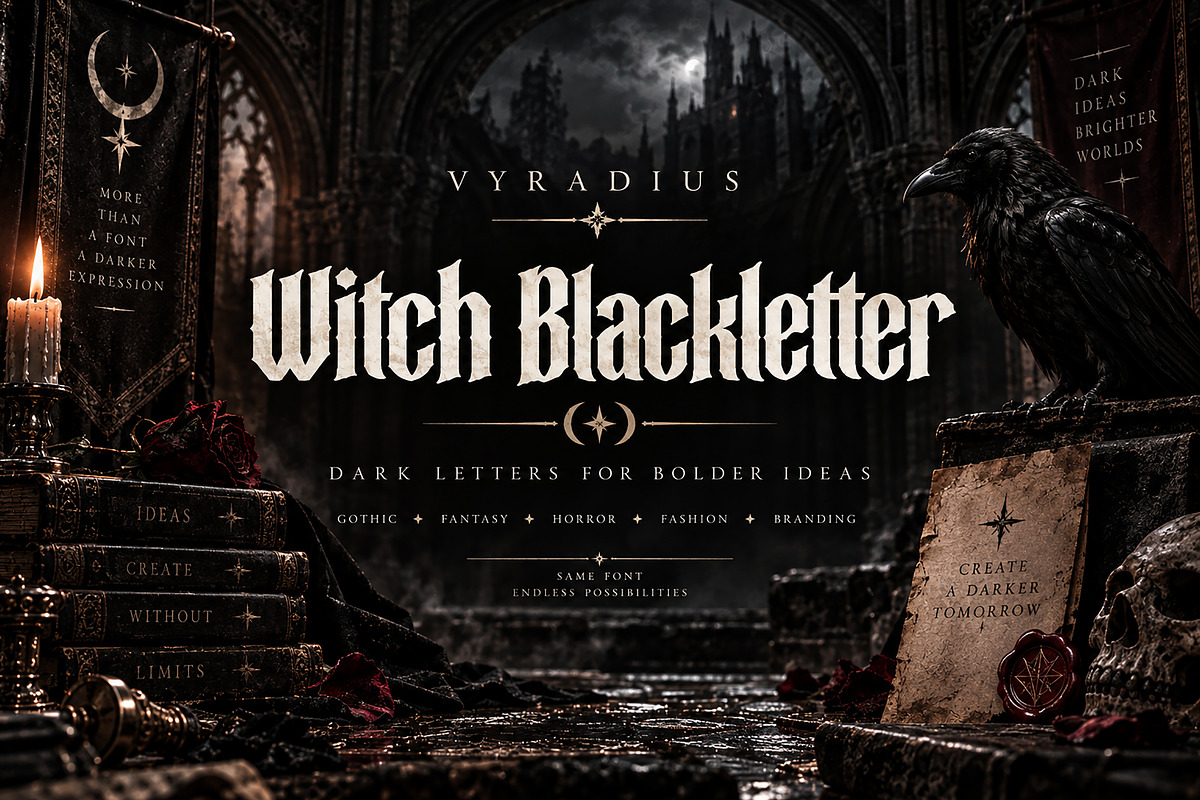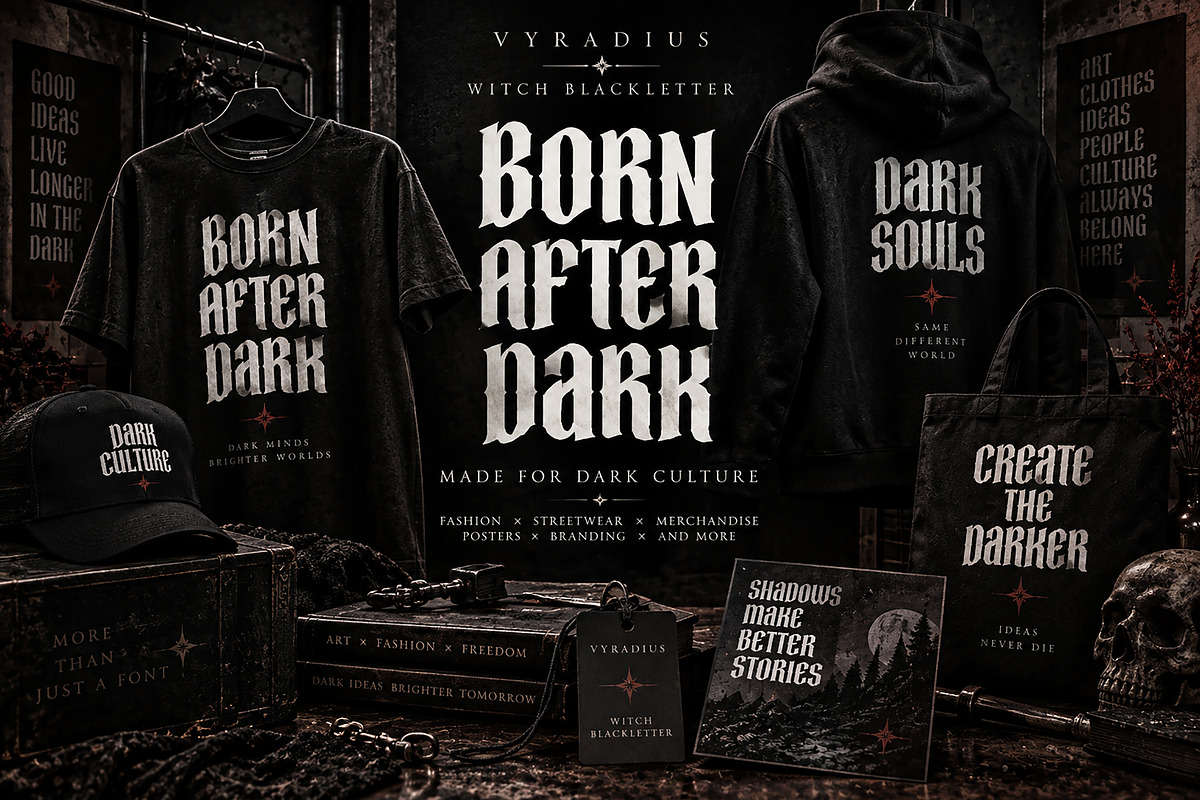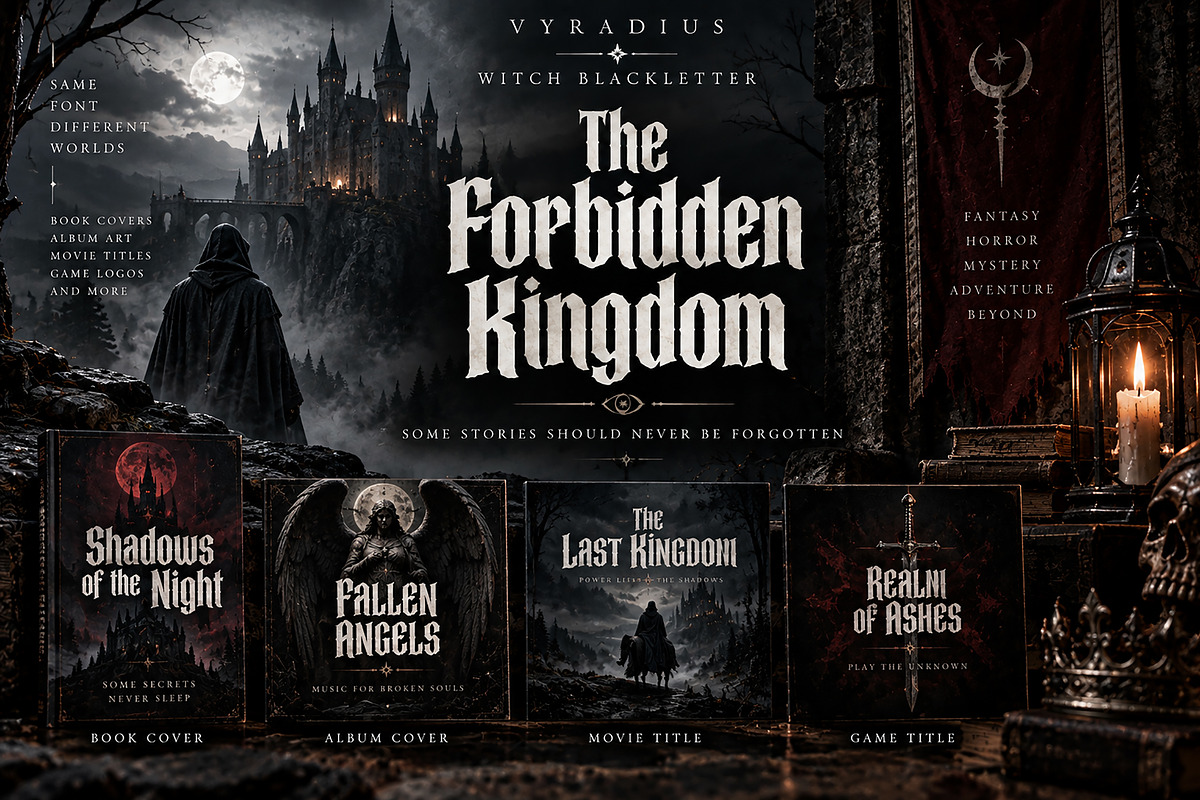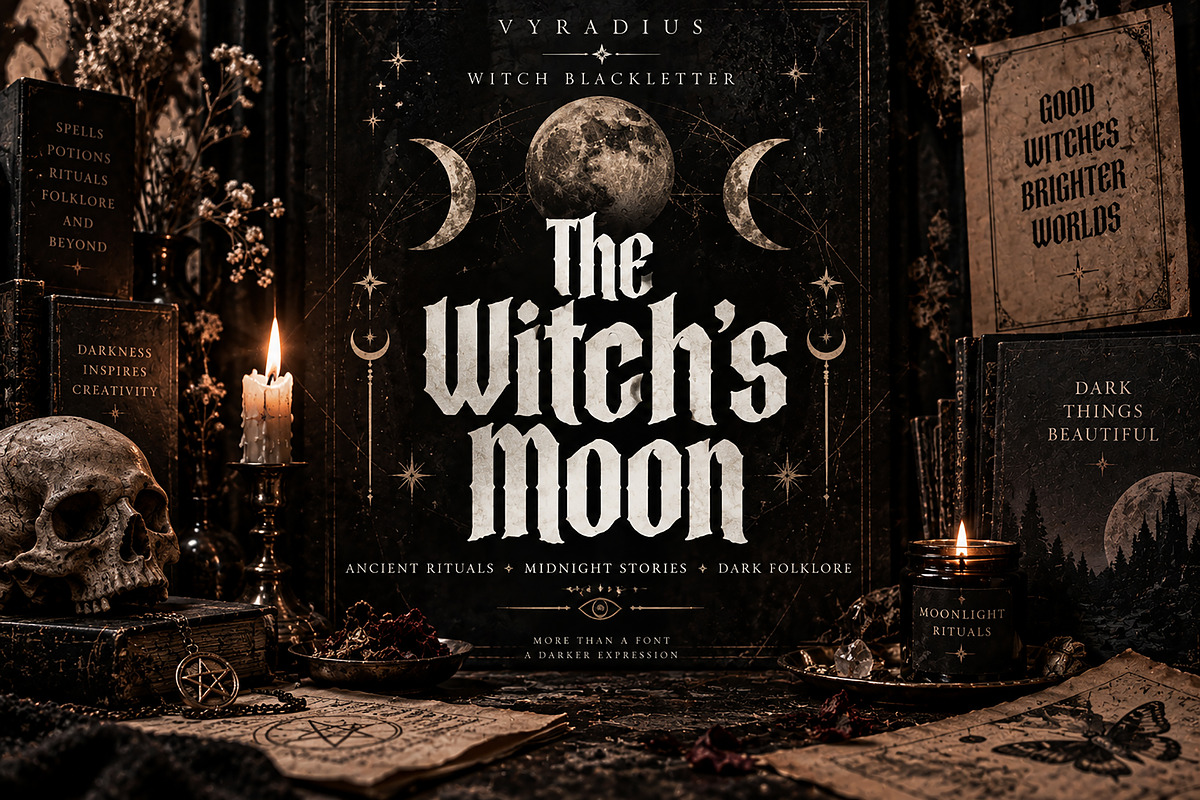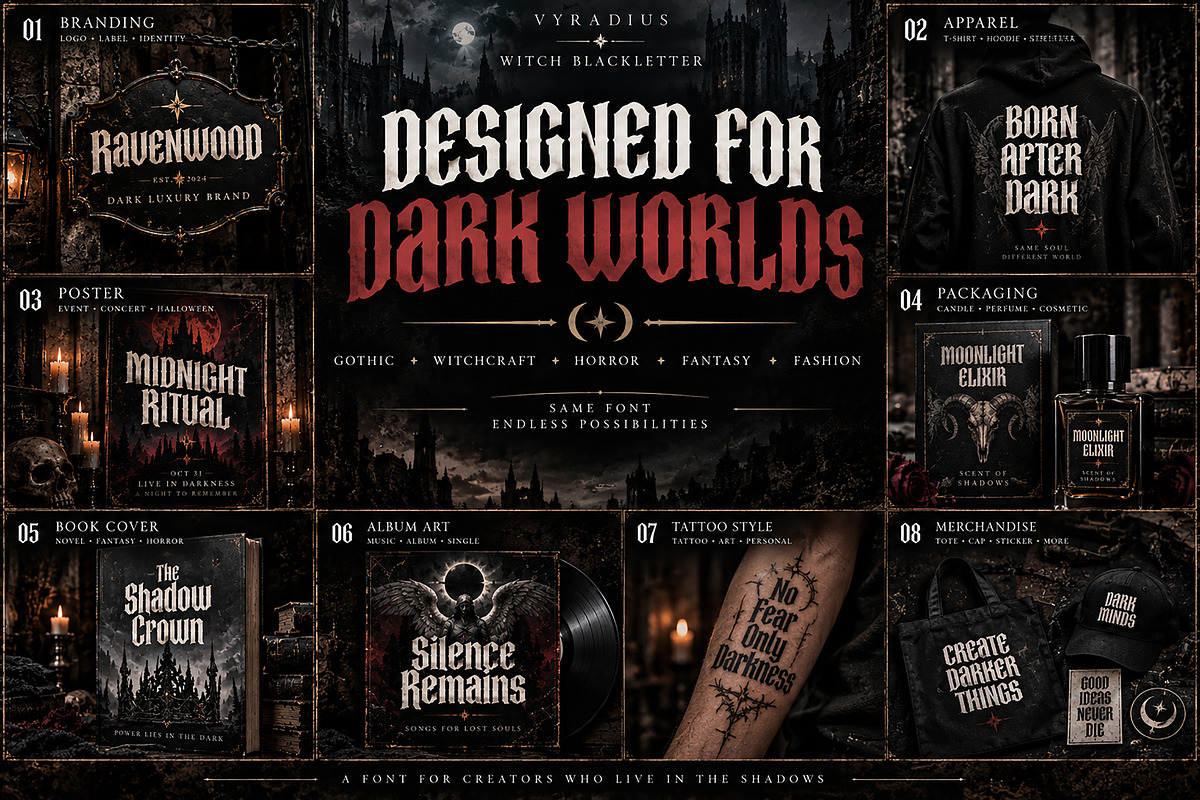
Witch Blackletter
Vyradius – Witch Blackletter is a bold and atmospheric blackletter display font designed for dark, dramatic, and mysterious creative projects. Inspired by medieval typography, gothic aesthetics, witchcraft, and dark fantasy, Vyradius combines sharp traditional blackletter forms with a powerful contemporary presence.
Its distinctive, high-contrast letterforms make it ideal for designs that need an intense and memorable visual identity. Whether you are creating a gothic fashion brand, horror artwork, fantasy title, Halloween project, album cover, book cover, poster, or merchandise collection, Vyradius brings an unmistakable dark character to your typography.
Perfect for branding, logos, apparel, posters, album artwork, book covers, movie titles, game titles, packaging, tattoos, labels, invitations, merchandise, and editorial designs.
Use Vyradius to create powerful headlines, atmospheric titles, dramatic branding, and striking visual compositions where ordinary typography simply isn't enough.
Gothic & Dark Branding
Witchcraft & Occult Designs
Halloween Projects
Horror & Dark Fantasy
Medieval & Fantasy Artwork
Streetwear & Apparel
Band & Album Artwork
Book & Movie Titles
Game & Entertainment Graphics
Posters & Editorial Designs
Product Packaging & Labels
Merchandise & Print Design
Tattoo-Inspired Typography
Style: Gothic Blackletter / Medieval Display
Vyradius – Witch Blackletter is made for creators who want their typography to feel dark, bold, timeless, and unforgettable.